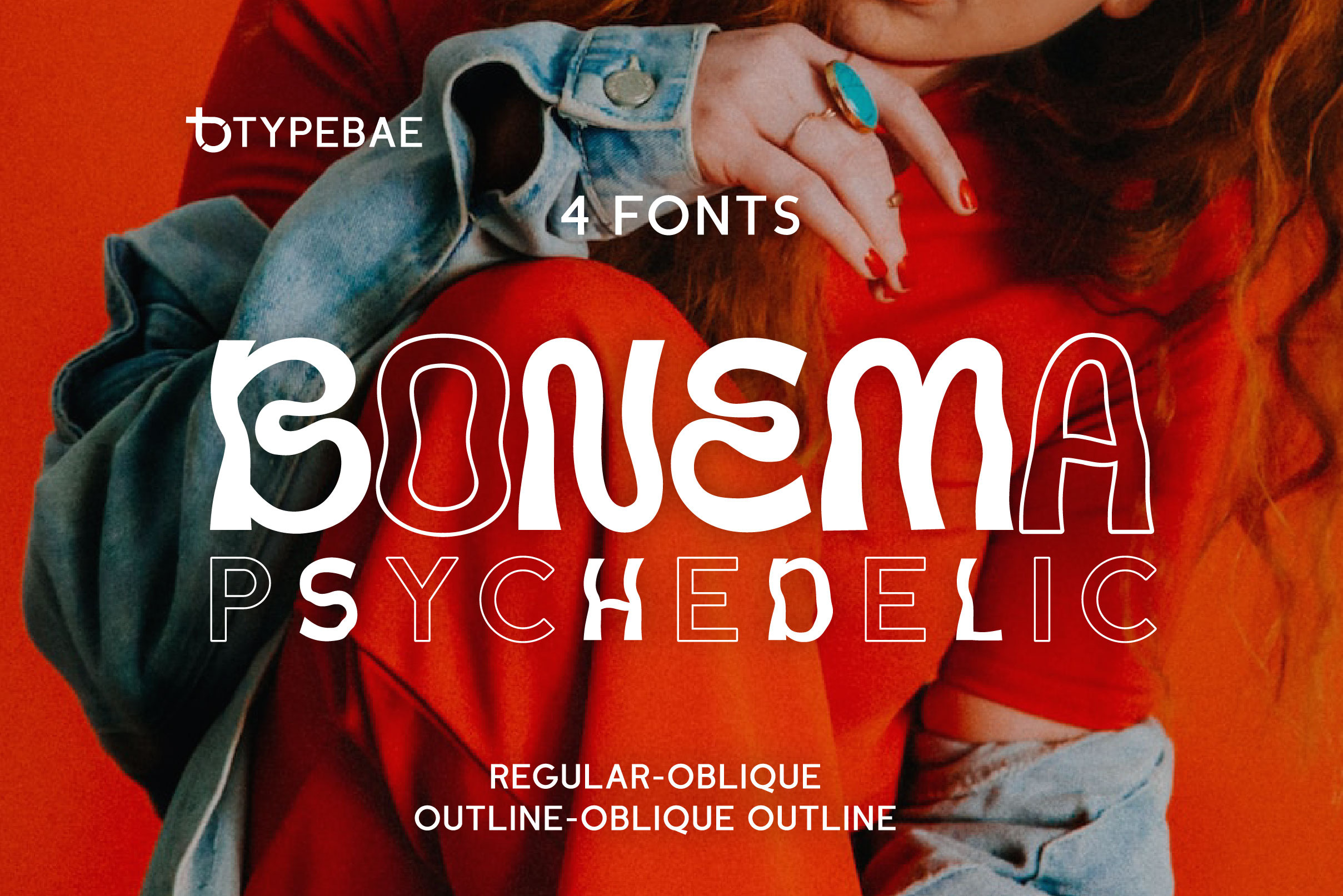
Bonema Psychedelic Font
Bonema is a retro-style font that encapsulates the spirit of the psychedelic era. The letters are decorated with elaborate, sparkling patterns that give off a surreal, free-spirited vibe. The fascinating and intriguing personality of the typeface will undoubtedly transport viewers to another time and place.